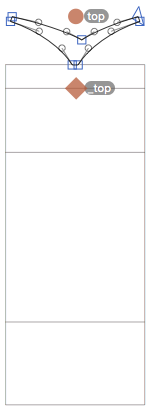
Diacritics
You would like to know how to build letters with accents, umlauts, tildes and what have you? Super easy, I promise.
Okay, say you already finished your lowercase letters from a to z. Now think, for example, of an ‘ä’ (adieresis) and an ‘ñ’ (ntilde). We already have the a and the n. In a perfect world, all we need to build are the diacritical marks (in this case the dieresiscomb and the tildecomb) and then stick them together like Lego bricks.
Marks
All those accents and umlauts are called ‘combining marks’ in advanced typedesignspeak. Glyphs gives you all necessary marks for a language group in the sidebar of the Font tab. E.g., to build all accents for Western Latin, navigate to Languages > Latin > Western European. Right-click on it to open the pop-up that shows you all missing glyphs in that section:
At the bottom of the list, you will find a range of glyph names ending in comb. That is short for combining, which makes sense because we do want to combine them with base letters below them.
Select them all, press Generate and you’ll get nine marks. If everything went right, you should see acutecomb, cedillacomb, circumflexcomb, dieresiscomb, dotaccentcomb, gravecomb, ringcomb, strokeshortcomb, slashlongcomb, tildecomb:
All of these accents are supposed to go right above the x-height. Only cedillacomb hangs on the baseline. To get back to our example, this is what our dieresiscomb could look like:
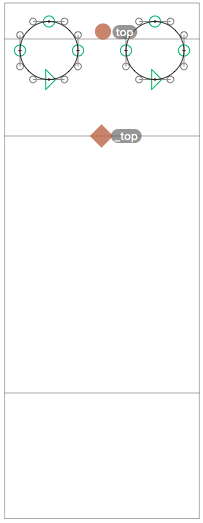
And here’s our tilde:
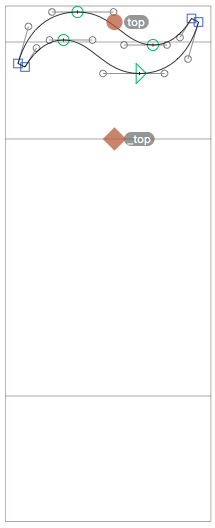
Anchors
See those red dots there? These are called anchors. Anchors help connect base glyphs with marks. If you click on them, you can see their names. In the base letters like a and n, they are called top, bottom or ogonek:
In the marks, they have the same names, except for a preceding underscore, i.e. _top, _bottom and _ogonek:
If you want to set predefined default anchors for a glyph, select Set Anchors (Cmd-U) from the Glyph menu. Simultaneously hold down the Option key to Reset Anchors (Cmd-Opt-U) to their defaults. And if you want to create a new anchor, just right-click and choose Add Anchor from the context menu:
If you want to rename the anchor, you can change the name in the grey info panel. Or just select it and hit return:
And if you select anchors, you get a grey preview of possible mark positionings, like this:
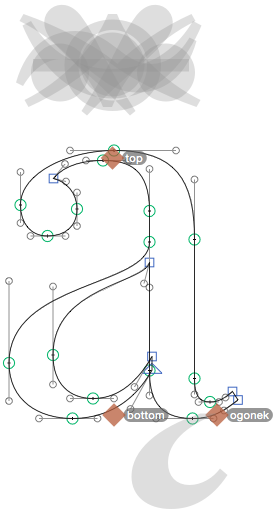
We call this a mark cloud. Nice.
Components
Now we have all the ingredients, base letters and marks, both with their respective anchors. So we just have to tell Glyphs to build the diacritics for us. But which ones are there? Which ones do we need? And what are their respective glyph names?
Again, just right-click one of the Languages in Font view. Both adieresis and ntilde can be found under Western European.
Select them and Glyphs will build both letters out of components. Components are live, hot-linked copies of your original letters. You can add any other glyph as a component into your current glyph via Glyph > Choose Component (Cmd-Shift-C). Glyphs even supports the nesting of components (i.e. components from composite letters) to some degree. The adieresis has an a component and a dieresiscomb component. Components are displayed as grey previews instead of the paths you usually see.
Due to its nature, you cannot edit a component, only the original glyph it points to. If you want to do that, simply double click a component and its original glyph will be opened next to it. If you rather have the paths and do not care about the hot-linking, you can dissolve the components into editable outlines by choosing Decompose from the context menu of the component, or Glyph > Decompose Components (Cmd-Shift-D) to decompose all components in selected glyphs.
The width of adieresis is in sync with a, the relative placement of the dieresiscomb mark is done with the anchors. If you do not want automatic positioning and syncing, you can right-click on the respective component and choose Disable Automatic Alignment from the context menu:
In any event, we have our diacritics now:
The i and the j
So far, so good. There is one lowercase letter that poses a problem though. Or actually, there are two of them: the i and the j. If you want to put any mark on those, you need to get rid of the dot first. In other words, we need an i without a dot and a j without a dot.
Thankfully, there is a dotless i called idotless and a dotless j called jdotless. If you have already drawn your i and your j, there is a quick and easy way to create those. Just select the i without the dot and choose Component from Selection from either the Glyph menu or the context menu:
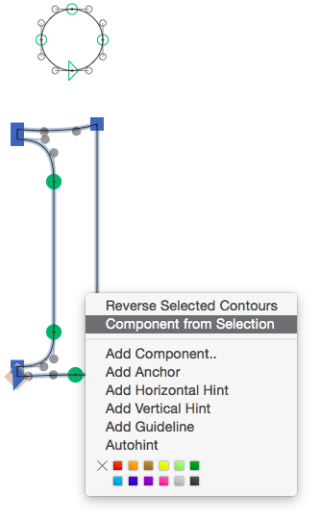
Glyphs will create the idotless for you and you’re good to go. Do the same with the j and you’ll also have a jdotless. Now we can also build i and j diacritics.
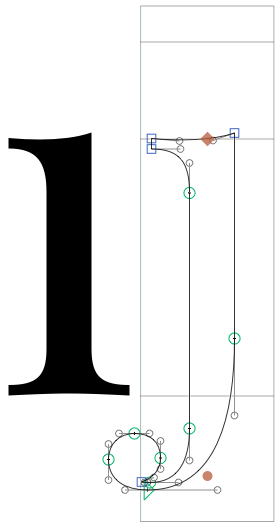
Admittedly, the lowercase j rarely takes an accent. To my knowledge, the only written languages employing a j diacritic is Esperanto, which knows U+0135 LATIN SMALL LETTER J CIRCUMFLEX, and Dutch, which, if properly encoded, puts U+0301 COMBINING ACUTE ACCENT on the j in the stressed ij. Besides that, Latin transliterations of some Indic languages may put the same combining non-spacing acute on the j. And in some phonetic alphabets, U+01F0 LATIN SMALL LETTER J WITH CARON can occur. Wikipedia states that it is also used for writing Pashto and Wakhi with the Latin script. So, all in all, there is enough reason for having a separate jdotless in your font.